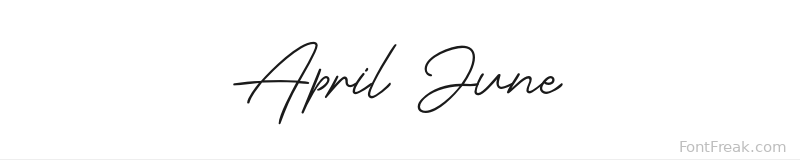
April June
About April June
The April June font, crafted by Syaf Rizal, is a beautiful script typeface that exudes elegance and sophistication. This handwritten style features smooth, flowing strokes that create a sense of warmth and personal touch, making it an excellent choice for various creative projects. The font showcases a moderate stroke weight with subtle contrasts, offering a harmonious balance between bold and delicate lines. Its generous spacing enhances readability while maintaining a stylish appearance, making it particularly appealing for design applications.
April June is ideal for wedding invitations, where its romantic curves can elevate the overall aesthetic. It also shines in greeting cards, adding a heartfelt touch to personal messages. For small businesses, this font can enhance branding materials such as logos or promotional flyers, offering a unique identity that resonates with customers. Additionally, it can be effectively used in social media graphics, helping content creators capture attention with its charming visual appeal.
The target audience for the April June font includes graphic designers looking for a versatile script typeface, small business owners aiming to enhance their brand image, and content creators who seek to make their projects stand out. Its playful yet sophisticated character makes it suitable for both professional and personal use, appealing to a wide range of creative endeavors.
What sets the April June font apart is its ability to blend elegance with accessibility. As a freeware option, it invites users to explore its beauty without financial constraints. Whether you're designing a heartfelt invitation or a captivating social media post, the April June font free download offers a delightful solution that adds a unique touch to any project. Embrace this exquisite typeface and let your creativity flourish with its charming nuances.